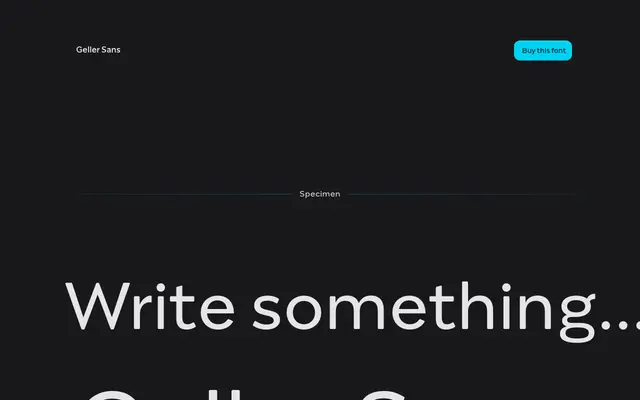
Geller Sans
Capitalics · Ludka Biniek
A 104-style sans-serif family by Ludka Biniek, built on the proportions of Geller Serif and spanning four widths from Regular to Compressed.
Derived from the proportions of its serif companion, the family runs thirteen weights from Thin to ExtraHeavy across Regular, Narrow, Condensed and Compressed widths, each with matching italics. OpenType features include bullets and dingbats for list-making, following the same approach as Geller Serif. The range of widths and weights makes it serviceable across both editorial text setting and larger advertising use.
Described as derived from the proportions of its serif predecessor Geller Serif, suggesting a humanist construction with organic proportions rather than strict geometric or grotesque forms.